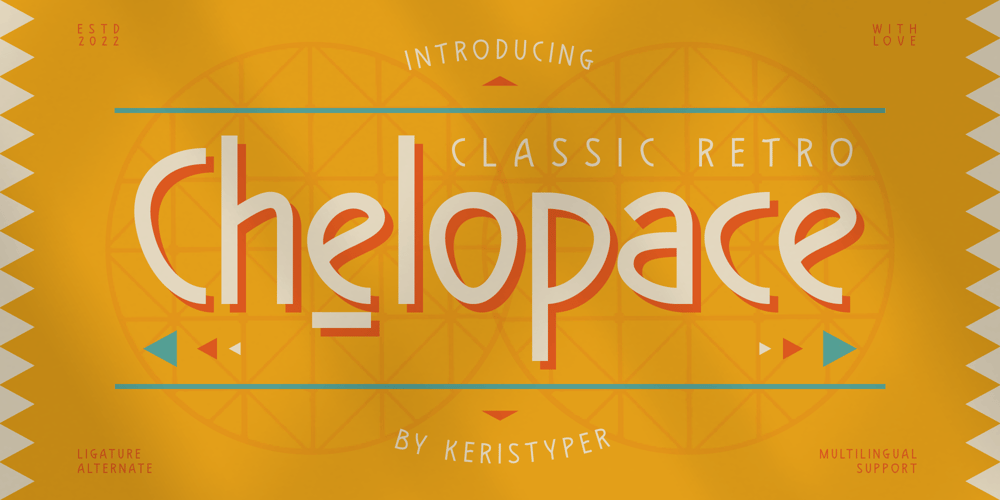
Chelopace Font Family was designed by Tezar Tantular and published by Keristyper Studio. Chelopace contains 1 styles and family package options. Introducing Chelopace, a classic retro blend between clean and vintage-themed type work, inspired by the old advertisement letters. This font is good for logo design, Social media, Movie Titles, Books Titles, short text even long text letters, and good for your secondary text font with sans or serif.**Featured:*** Standard Uppercase & Lowercase* Numeral & Punctuation* Multilingual : ä ö ü Ä Ö Ü ß ¿ ¡* Alternate & Ligature* PUA encodedWe recommend programs that support the OpenType feature and the Glyphs panel such as Adobe applications or Corel Draw. so you can use all the variations of the glyphs.Hope you enjoy our fonts!